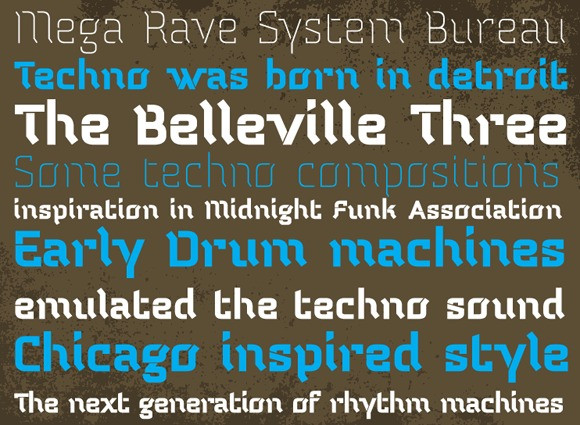
Temp Font
Temp Font is a futuristic display font. Inspired by the style of electronic music players from the 1990s and early 2000s, it captures the raw energy of the underground music scene, where DIY design meets cutting-edge technology. The result is a typeface that feels both classic and modern, a paradox that reflects the true nature of electronic music.